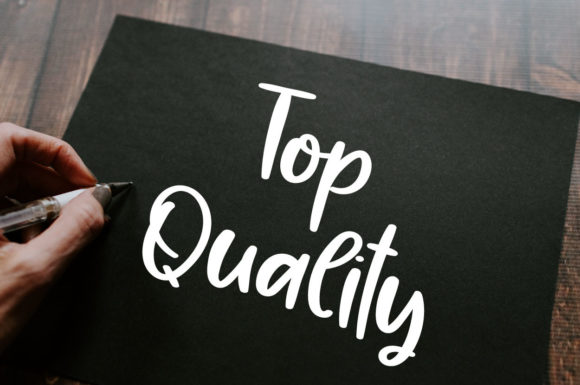
The Flamingo Font: A Cool and Fun Handwritten Font for Your Creative Projects
The Flamingo Font is a stylish and playful handwritten font that can add a touch of personality to any creative project. Its unique and eye-catching design makes it an excellent asset to any font library, capable of elevating any creation to new heights. In this article, we’ll take a closer look at The Flamingo Font, its features, and how it can be used to enhance your designs.
What is The Flamingo Font?
The Flamingo Font is a modern handwritten font designed to bring a sense of fun and playfulness to your designs. Its elegant and cursive style makes it perfect for a wide range of applications, from creative projects to commercial use. The font is carefully crafted to ensure that it is legible and easy to read, making it suitable for use in various contexts.
Key Features of The Flamingo Font
- Handwritten style: The Flamingo Font boasts a beautiful handwritten style that adds a personal touch to your designs.
- Unique and eye-catching design: The font’s distinctive design makes it stand out from other fonts, ensuring that your creations grab attention.
- Legible and easy to read: Despite its playful nature, The Flamingo Font is carefully designed to be legible and easy to read.
- Versatile: The font is suitable for use in a wide range of applications, from creative projects to commercial use.
- Elegant and cursive style: The Flamingo Font features an elegant and cursive style that adds a touch of sophistication to your designs.
Benefits of Using The Flamingo Font
The Flamingo Font offers several benefits to designers, including:
- Enhanced creativity: The font’s unique design and playful style can inspire creativity and help you produce innovative designs.
- Improved readability: The font’s legibility ensures that your text is easy to read, making it perfect for use in body text and headings.
- Time-saving: With The Flamingo Font, you can quickly create stunning designs without spending hours on typography.
- Professional-looking designs: The font’s elegant and cursive style makes it suitable for use in professional designs, such as brochures, posters, and business cards.
How to Use The Flamingo Font
The Flamingo Font is easy to use and can be incorporated into your designs in various ways:
- Pair it with other fonts: Combine The Flamingo Font with other fonts to create a unique and visually appealing typography.
- Use it as a headline font: The font’s bold and playful style makes it perfect for use in headlines and titles.
- Apply it to body text: The font’s legibility ensures that it can be used in body text, making it suitable for use in longer pieces of text.
- Experiment with different colors and textures: The Flamingo Font can be used with various colors and textures to create a unique and eye-catching design.
The Flamingo Font in Graphic Design
The Flamingo Font can be used in various graphic design applications, including:
- Branding and logos: The font’s unique design makes it perfect for use in branding and logos.
- Posters and flyers: The font’s bold and playful style makes it suitable for use in posters and flyers.
- Business cards and stationery: The font’s elegant and cursive style makes it perfect for use in business cards and stationery.
- Digital graphics and social media: The font’s legibility and unique design make it suitable for use in digital graphics and social media.
Tips for Getting the Most Out of The Flamingo Font
To get the most out of The Flamingo Font, consider the following tips:
- Experiment with different font sizes and styles: The font’s versatility makes it suitable for use in various font sizes and styles.
- Use it in combination with other design elements: The font’s unique design makes it perfect for use in combination with other design elements, such as images and graphics.
- Consider the context: The font’s playful style makes it suitable for use in various contexts, but consider the tone and audience of your design.
The Flamingo Font is a cool and fun looking handwritten font that can add a touch of personality to any creative project. Its unique and eye-catching design makes it an excellent asset to any font library, capable of elevating any creation to new heights. With its legibility, elegance, and versatility, The Flamingo Font is perfect for use in various graphic design applications, from branding and logos to digital graphics and social media.
- What is The Flamingo Font?
- The Flamingo Font is a modern handwritten font designed to bring a sense of fun and playfulness to your designs.
- What are the key features of The Flamingo Font?
- The font boasts a beautiful handwritten style, unique and eye-catching design, legibility, and versatility.
- How can I use The Flamingo Font?
- The font can be used in various ways, including pairing it with other fonts, using it as a headline font, applying it to body text, and experimenting with different colors and textures.